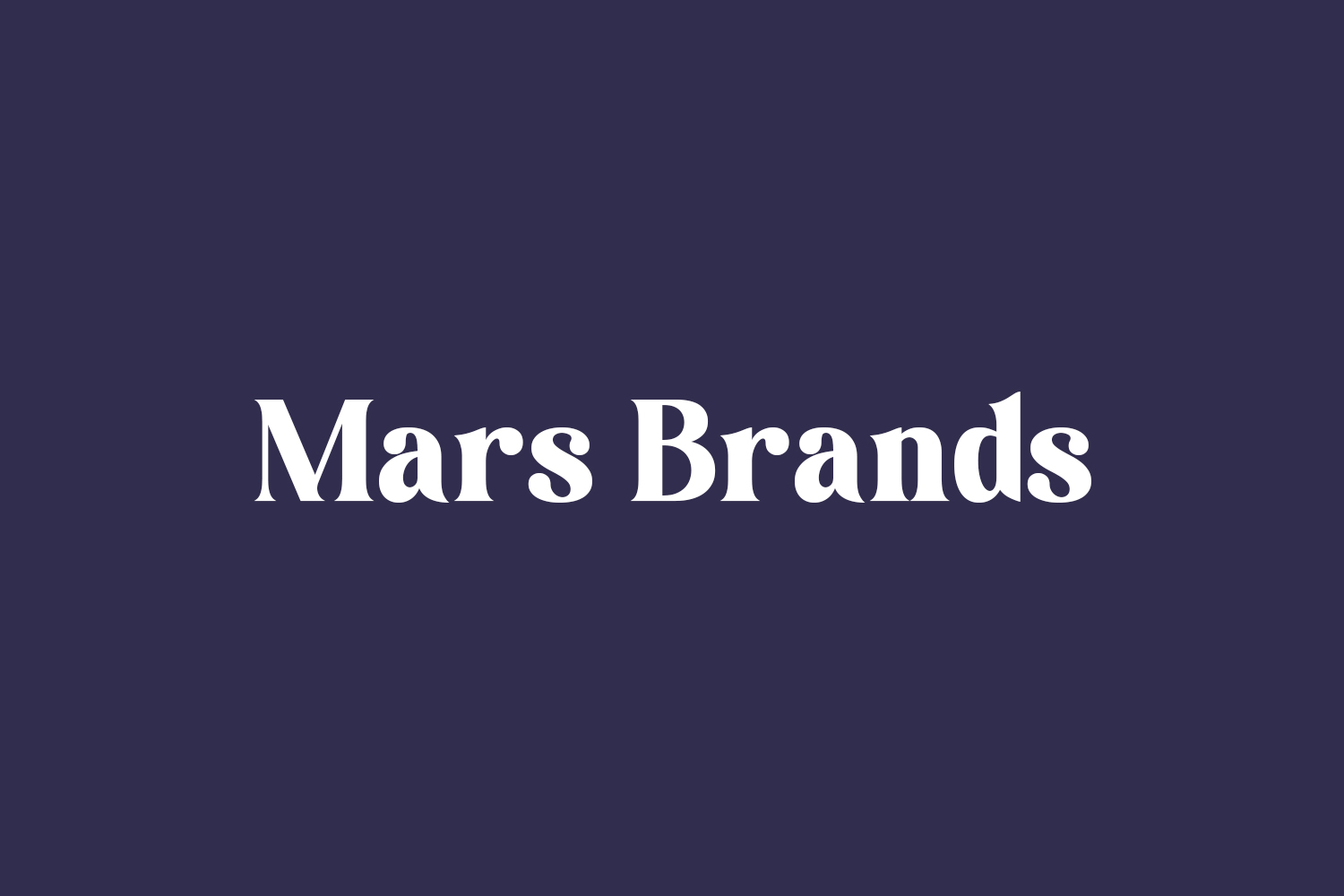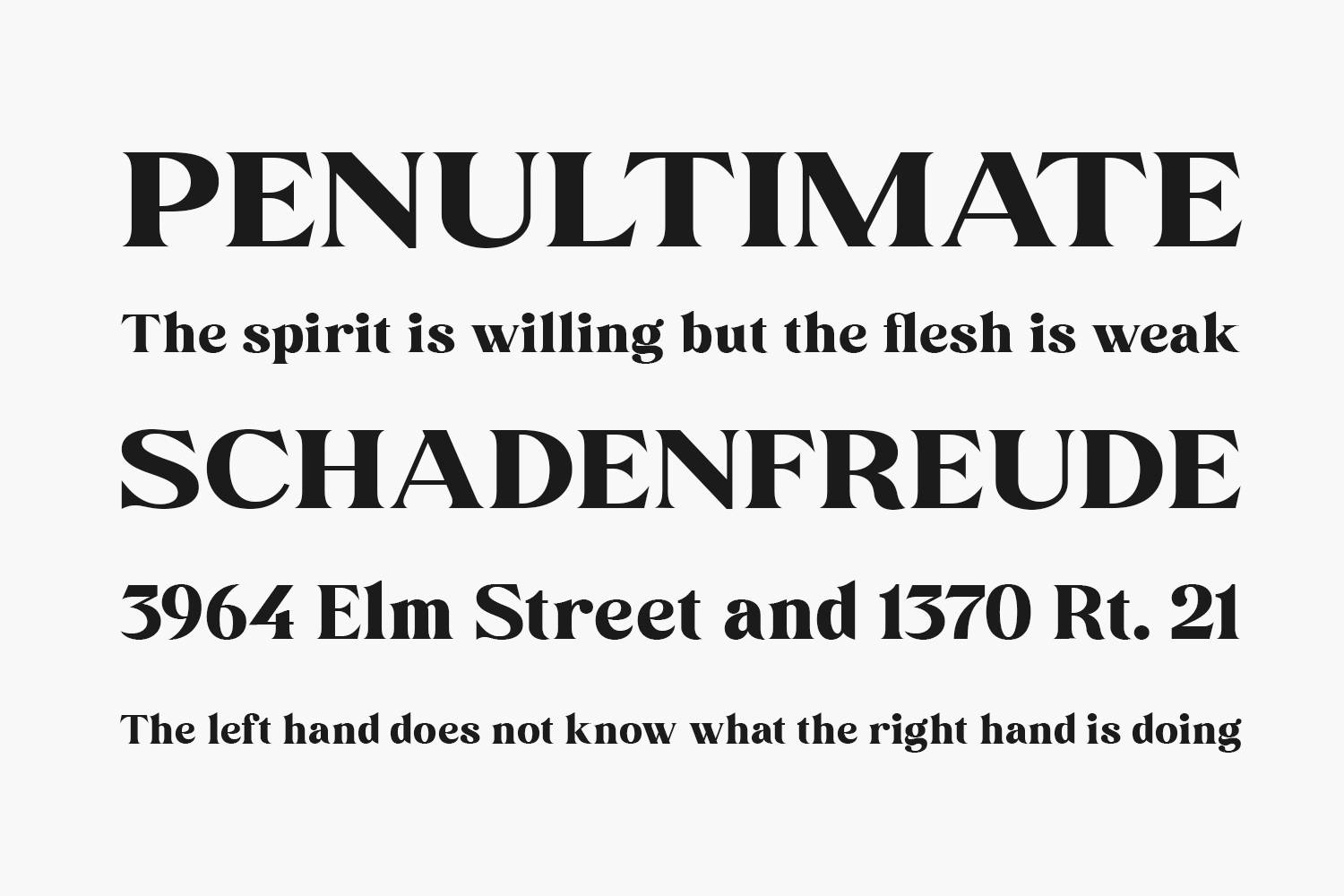
Immerse yourself in the captivating world of Mars Brands Free Font, a remarkable serif font designed to evoke romance and beauty. Crafted with precision, this font boasts seamless curves and exquisite details that lend an air of loveliness to any project. With its extensive collection of ligatures and alternate characters, spanning from uppercase to lowercase, Mars Brands provides an array of possibilities for creative expression. Mars Brands Free Font is free for personal use only. Please purchase the full version for commercial use.
Designed by Sign Studio